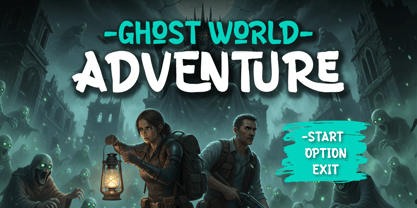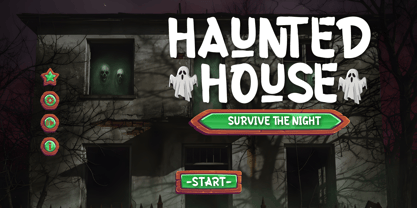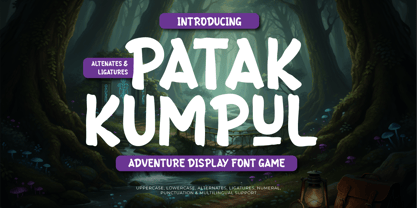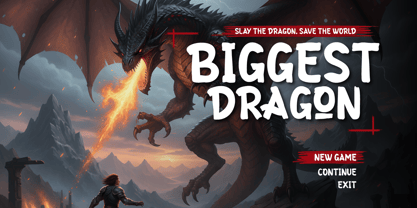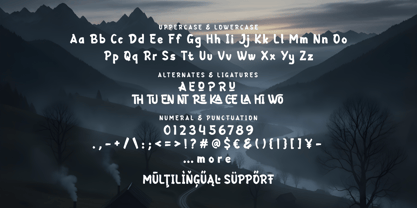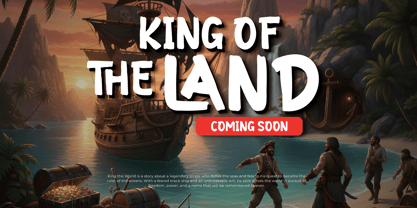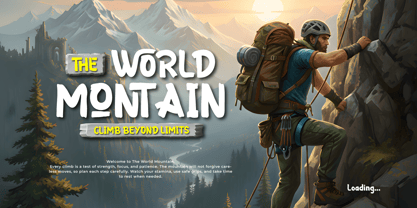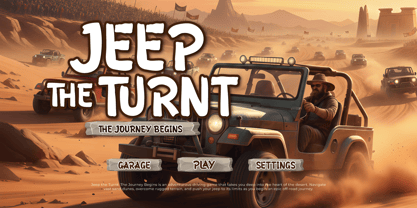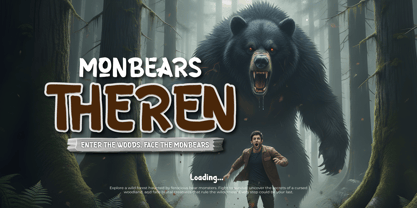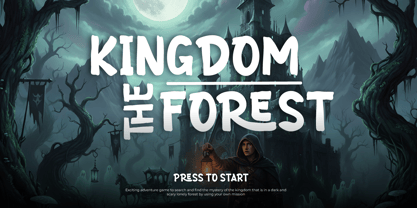
Patak Kumpul is an Adventure Display typeface designed for game visuals and fantasy-themed design needs. It features bold and firm letterforms, providing a solid character for main titles and visual identities. Its characteristics are functionally crafted to support exploration, action, and RPG world narratives.
The design structure prioritizes visual clarity to ensure the text remains readable at various display sizes. Details in each character are tailored for user interface needs (Game UI) and print materials like posters and book covers. This makes it a practical choice for designers requiring typography with a clear and professional information hierarchy.
As an Adventure Game Font, Patak Kumpul is equipped with uppercase, lowercase, and extensive multilingual support. This font is suitable for game logos, cinematic promotional materials, and adventure-themed branding requiring a consistent aesthetic. Patak Kumpul offers a solid typography solution for various needs within the creative and entertainment industries.
Patak Kumpul